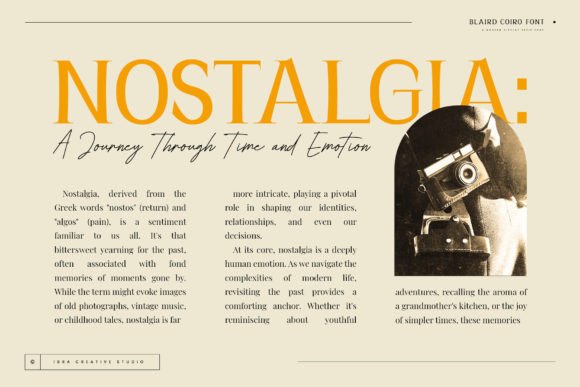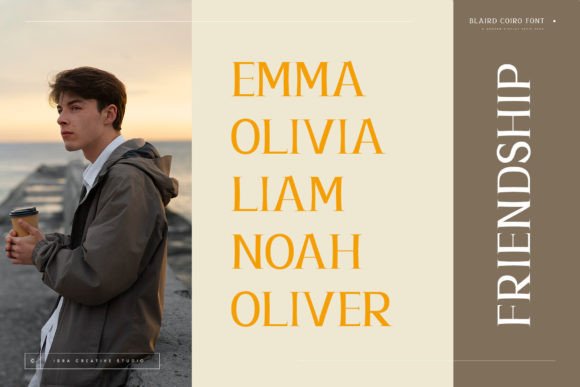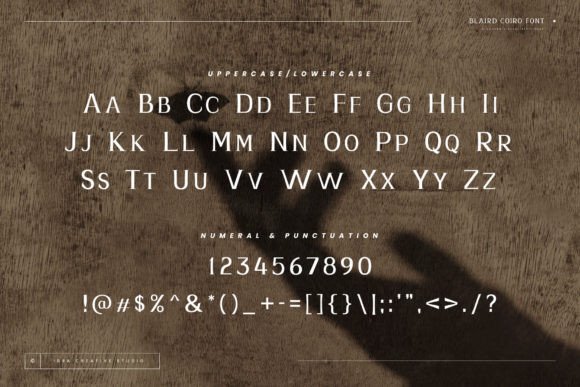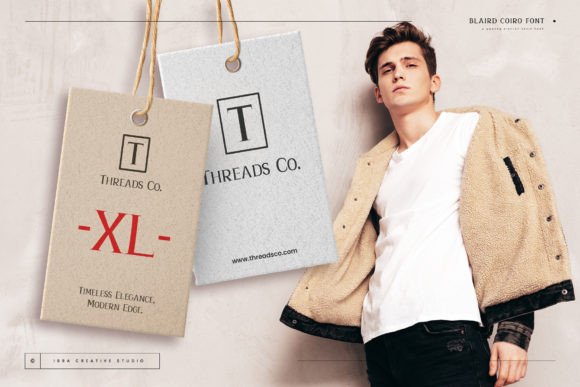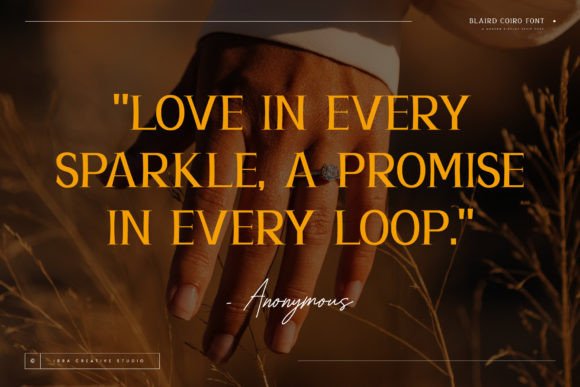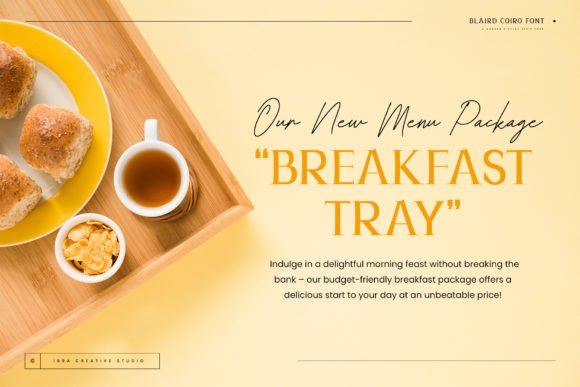
The Perfect Blend of Timeless Elegance and Modern Sophistication
Have you ever stumbled upon a font that makes your design vision come to life? For many creatives, that moment is like finding a missing puzzle piece – everything falls into place. For me, it was when I discovered the Blaird Coiro Font. Its unique blend of classic and modern elements sparked a wave of inspiration, and I couldn’t wait to dive deeper into its world.
Designed to captivate audiences in both digital and print mediums, the Blaird Coiro Font is a masterful combination of clean lines, balanced proportions, and subtle geometric nuances. Its sophisticated aesthetic makes it an ideal choice for branding, editorial design, and upscale packaging. As a designer, I can attest to the value of having a versatile font like Blaird Coiro in your toolkit – it’s a game-changer for elevating your creative projects to the next level.
Blair Coiro Font Key Features
- Font Family: Blair Coiro is a serif font family designed by Dalton Maag.
- Unique Characteristics: Blair Coiro features a unique blend of traditional and modern design elements, with subtle flair and elegance.
- Language Support: Blair Coiro supports a wide range of languages, including Latin, Cyrillic, and Greek scripts.
Blaird Coiro Font Review
I recently had the chance to work with the Blaird Coiro Font, and I must say it’s a mixed bag. Here’s my honest take on what works well and what doesn’t.
- The Blaird Coiro Font has a unique and quirky feel to it, which can be perfect for adding some personality to your designs.
- The font is highly customizable, with a wide range of styles and weights to choose from.
- The font is well-suited for digital use, with clear and legible letterforms that work well on screens.
- The Blaird Coiro Font can be a bit overwhelming to read in large blocks of text, due to its busy and intricate design.
- The font may not be the best choice for formal or professional designs, as it can come across as too playful or whimsical.
- The font’s customization options can also make it difficult to achieve consistency across different elements of your design.
Overall, I’d say the Blaird Coiro Font is a solid choice for designers looking to add some personality to their work. While it may not be the best fit for every project, it’s definitely worth considering for those looking for a unique and eye-catching font. With a bit of careful planning and consideration, you can use the Blaird Coiro Font to create some truly standout designs.
Blaird Coiro Font is ideal for creating elegant and sophisticated designs, making it perfect for:
2. Luxury branding and packaging.
3. High-end advertising and marketing materials.
Remember to pair Blaird Coiro Font with a clean and simple design to get the most out of it.